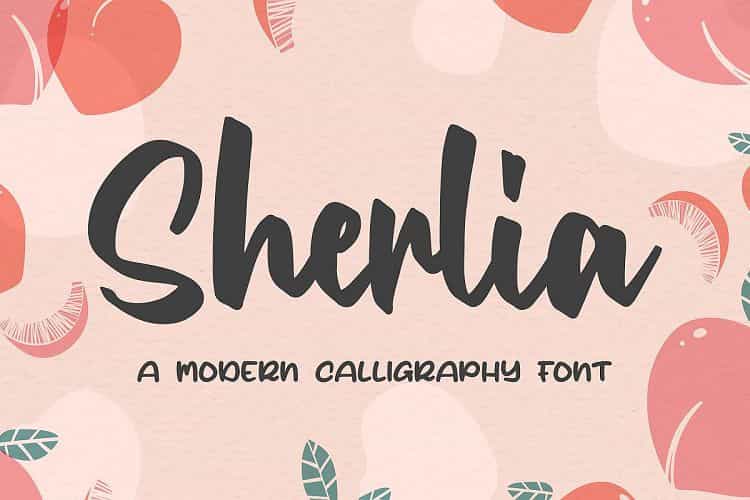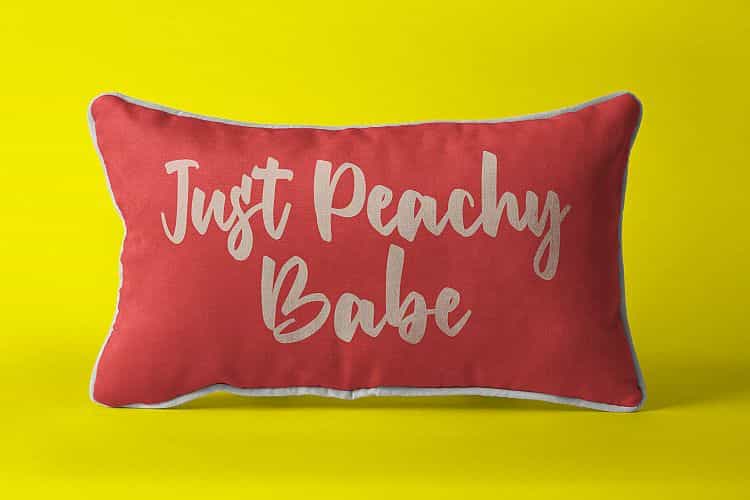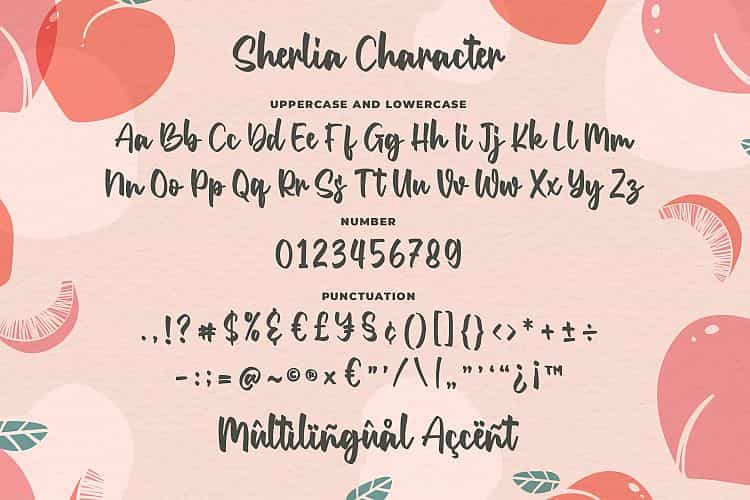
Discover Sherlia Modern Calligraphy Font, part of the Brush Calligraphy collection—a versatile and unique font perfect for adding a personal touch to your projects. Download it for free and enjoy crafting designs with style, from invitations to social media posts. This font is available exclusively for personal use, giving you the freedom to create without limits. Unlock your creativity with Sherlia Modern Calligraphy Font today!
Sherlia is a script font that was created in the style of Modern calligraphy, this font has a fun and light-hearted feel to it which makes it good for poster, food menu, wedding invitation or even logotype.